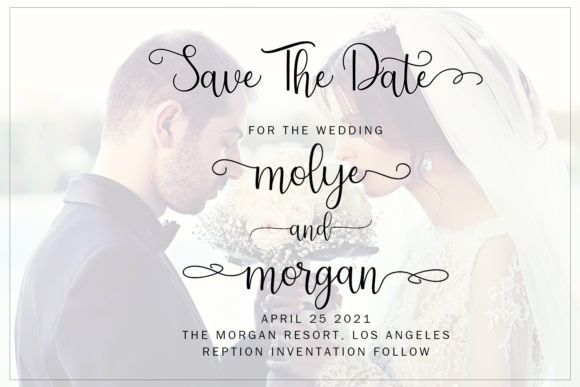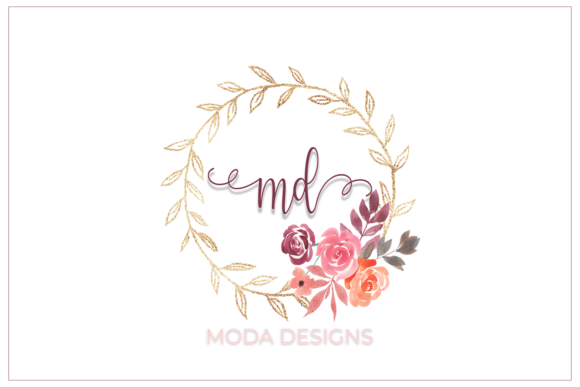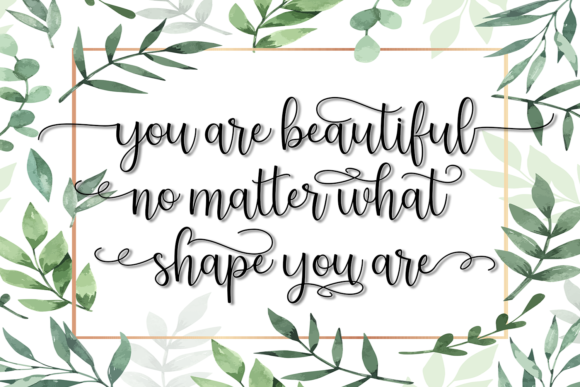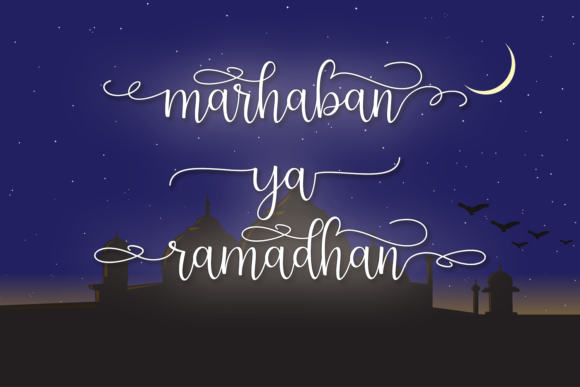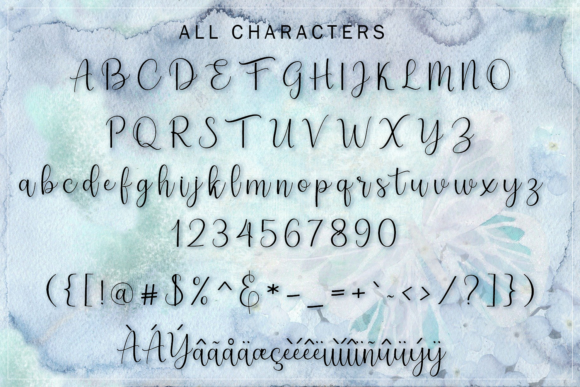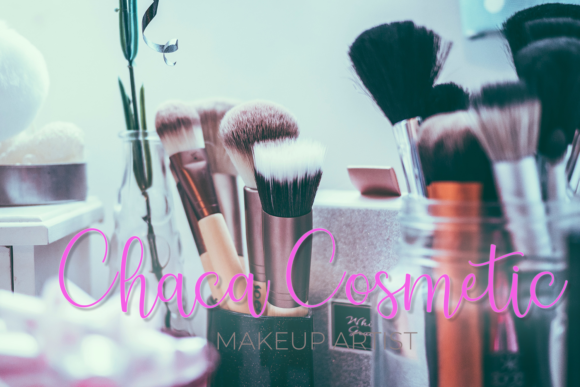
The Beauty of Aesthetic Font: Elevate Your Designs with Elegance and Sophistication
In the world of typography, fonts play a crucial role in conveying the tone and personality of a brand or design. Among the numerous font styles available, script fonts have gained immense popularity for their elegance and sophistication. One such font that has caught the attention of designers and crafters is Aesthetic Font. In this article, we’ll explore the beauty of Aesthetic Font, its features, and how it can elevate your designs to the next level.
What is Aesthetic Font?
Aesthetic Font is a beautiful and refined script font that exudes a classy, elegant, and modern look. Its sophisticated design makes it an ideal choice for various applications, including logos, branding, invitations, stationery, wedding designs, social media posts, and more. The font’s versatility and aesthetic appeal have made it a favorite among designers and crafters.
Key Features of Aesthetic Font
Aesthetic Font comes with several key features that make it a standout choice for designers:
• Elegant and Modern Design: The font boasts a sleek and contemporary design that is sure to impress. Its elegant strokes and refined lines make it perfect for creating sophisticated designs.
• Versatility: Aesthetic Font can be used for a wide range of applications, from logos and branding to invitations and social media posts.
Benefits of Using Aesthetic Font
Using Aesthetic Font in your designs can have numerous benefits:
• Enhance Brand Identity: Aesthetic Font can help you create a strong brand identity that exudes elegance and sophistication.
• Stand Out from the Crowd: The font’s unique design ensures that your designs stand out from the crowd and grab attention.
Design Ideas Using Aesthetic Font
Aesthetic Font is a versatile font that can be used in various design projects:
• Wedding Designs: Create beautiful wedding invitations, stationery, and decorations using Aesthetic Font.
• Branding and Logos: Use the font to create elegant and sophisticated logos and branding materials.
• Social Media Posts: Add a touch of elegance to your social media posts and stories using Aesthetic Font.
• Invitations and Stationery: Design stunning invitations and stationery for special occasions, such as birthdays, anniversaries, and graduations.
Tips for Using Aesthetic Font
To get the most out of Aesthetic Font, follow these tips:
• Experiment with Swashes: Use the font’s swashes to add a creative touch to your designs.
• Pair with Other Fonts: Pair Aesthetic Font with other fonts to create a unique and visually appealing design.
• Adjust Font Size and Color: Experiment with different font sizes and colors to create a design that suits your needs.
Aesthetic Font is a beautiful and refined script font that can elevate your designs to new heights. Its elegant and modern design, versatility, and PUA encoding make it an ideal choice for designers and crafters. With its numerous benefits and design possibilities, Aesthetic Font is sure to become a staple in your font collection. So, get creative and experiment with Aesthetic Font to add a touch of elegance and sophistication to your designs!